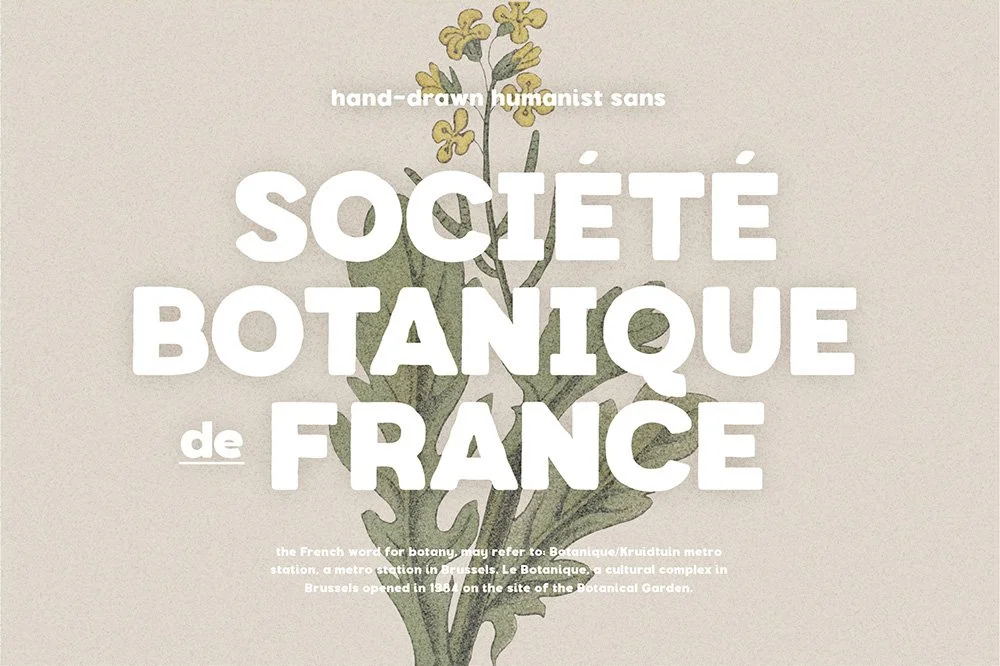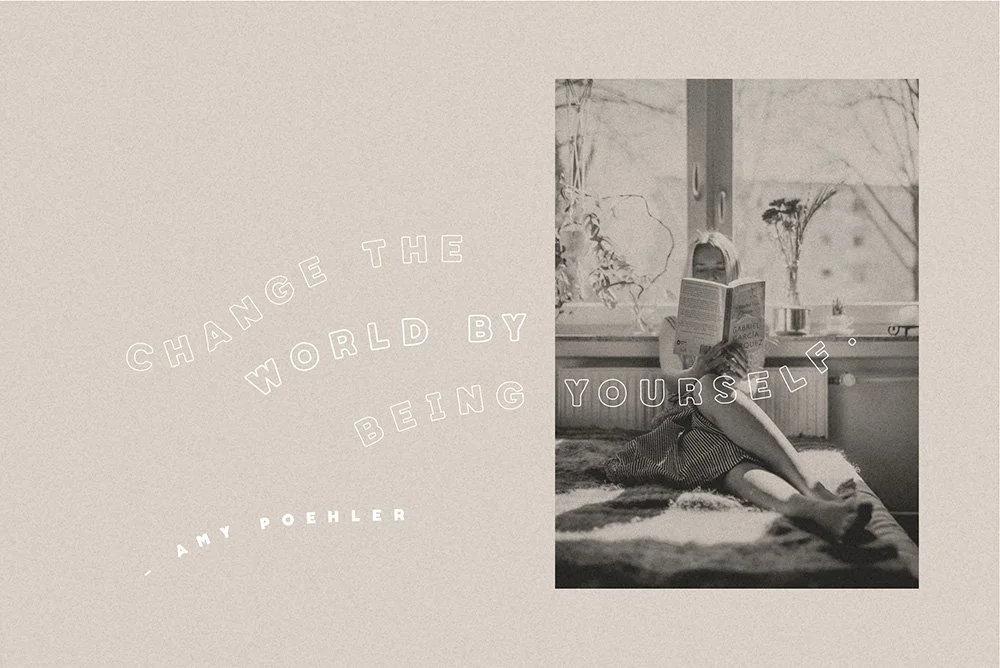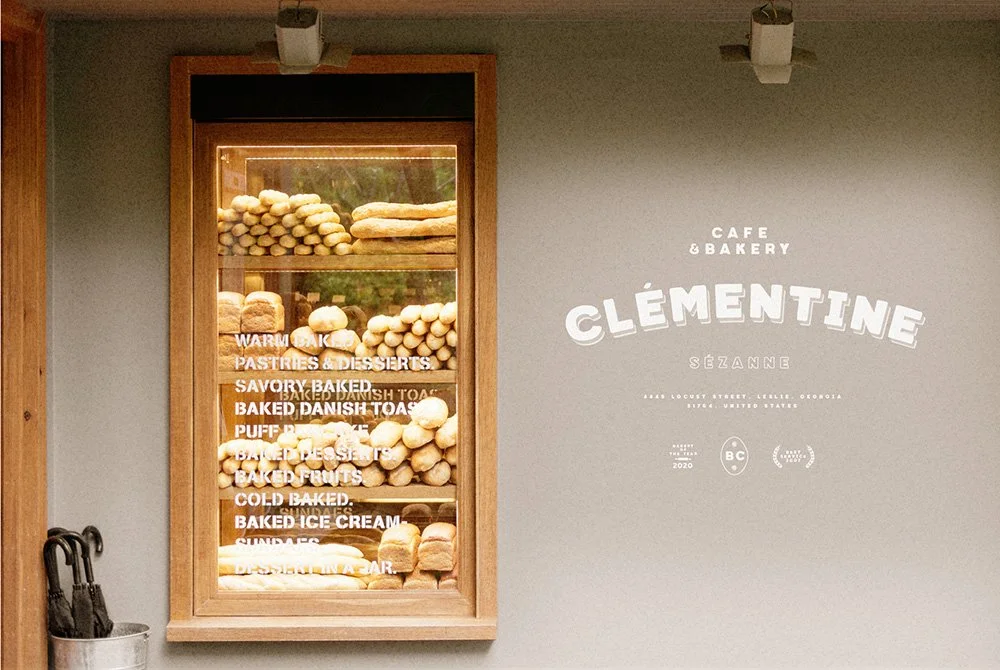
Botanique - Hand-drawn Humanist Sans
Botanique - a hand-drawn humanist sans with rough, cute, organic features. This font is specially designed for organic, humanist, elegant projects. Botanique is perfectly suitable for creating a clean design with a touch of rough and rustic. You can use it for logos, packaging, and social media... The possibilities are endless with this font.
• Europeans languages